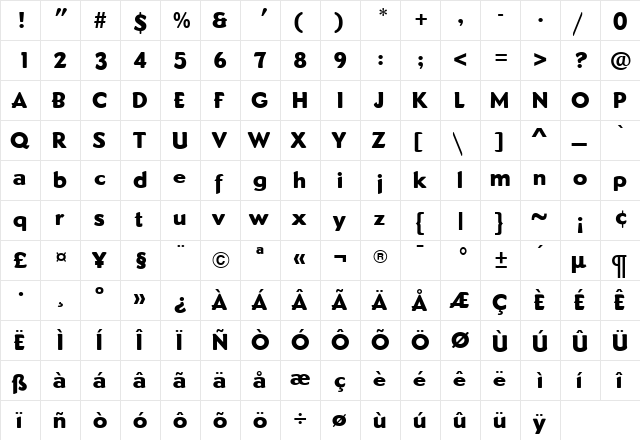
DundeeExBold Regular
Design Context for DundeeExBold Typeface
DundeeExBold offers clean, dependable letterforms without strong stylistic allegiance, making it a practical choice for designers who need flexibility. Its bold stroke weight gives it real presence on the page.